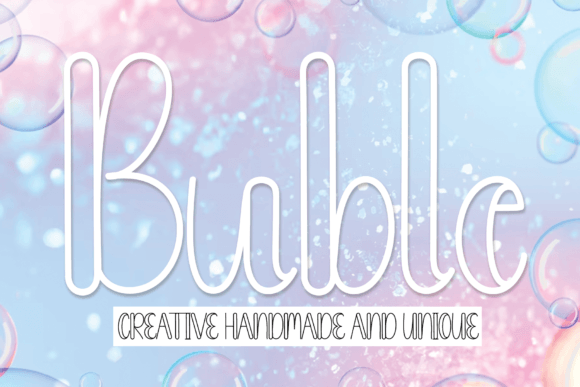
The Sweet Charm of Buble Font
Have you ever stared at a blank canvas, trying to come up with the perfect design concept? You know, that moment when the creative wheels start turning, and the ideas start flowing? That’s exactly what happened to me when I first discovered the Buble Font.
As a designer, I was immediately drawn to its playful and whimsical feel. The Buble Font is a sweet and friendly handwritten font, perfect for adding a touch of personality to your designs. Whether it’s a wedding invitation, a birthday card, or any other creative project, this font is sure to bring a smile to your face. And the best part? It’s incredibly versatile, making it a valuable asset for designers looking to add a little extra flair to their work.
With the Buble Font, you can create designs that are truly one-of-a-kind. Its unique charm and character make it a standout choice for anyone looking to add a personal touch to their projects. Whether you’re a seasoned designer or just starting out, the Buble Font is definitely worth checking out.
Bubble Font Key Features
- Unique Characteristics: The Bubble Font features a playful, rounded design with exaggerated curves and a soft, airy feel, making it perfect for children’s books, advertising, and other creative projects.
- Kerning and Ligatures: The Bubble Font includes advanced kerning and ligature pairs, ensuring smooth text rendering and a professional look.
Bubble Font Review
Overall, I was quite excited to dive into the Buble Font and see what it had to offer. I’ve worked with a lot of different fonts in the past, and I’m always on the lookout for something that stands out.
Here are some of the things that I think work well with the Buble Font:
- ✨ Unique aesthetic: The Buble Font has a really distinct look to it, with its rounded edges and bubbly shape. It’s definitely eye-catching, and I think it would be perfect for anyone looking to add a bit of whimsy to their design.
- ✨ Easy to read: Despite its playful appearance, the Buble Font is actually really easy to read. The letters are well-formed, and the font size is easily adjustable.
- ✨ Versatile: I was pleasantly surprised to find that the Buble Font works well in a variety of different contexts. It’s perfect for headings, titles, and even body text.
Of course, no font is perfect, and there are a few limitations to be aware of:
- ⚠️ Limited character set: Unfortunately, the Buble Font doesn’t come with a full character set. This means that you may need to supplement it with other fonts to get all the characters you need.
- ⚠️ Not ideal for small text: While the Buble Font is generally easy to read, it’s not the best choice for small text. The letters can start to blend together, making it difficult to read.
Overall, I think the Buble Font is a great choice for anyone looking to add a bit of personality to their design. It’s easy to use, versatile, and looks great in a variety of contexts. Just be aware of its limitations, and you’ll be all set!
The Bubble Font is ideal for creating playful, whimsical designs and is commonly used in:
- Social media graphics and advertisements
- Cartoon-style comics and animations